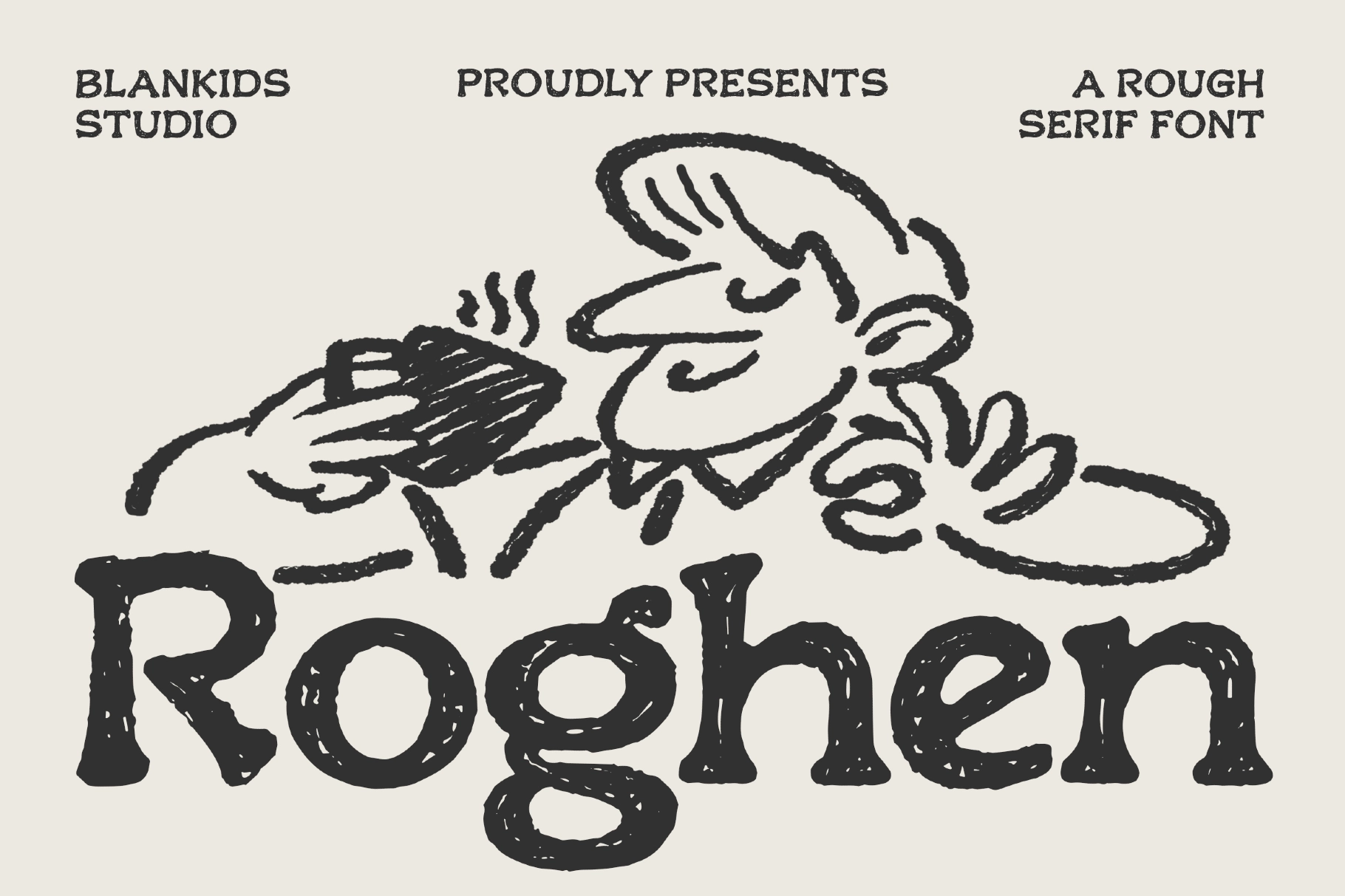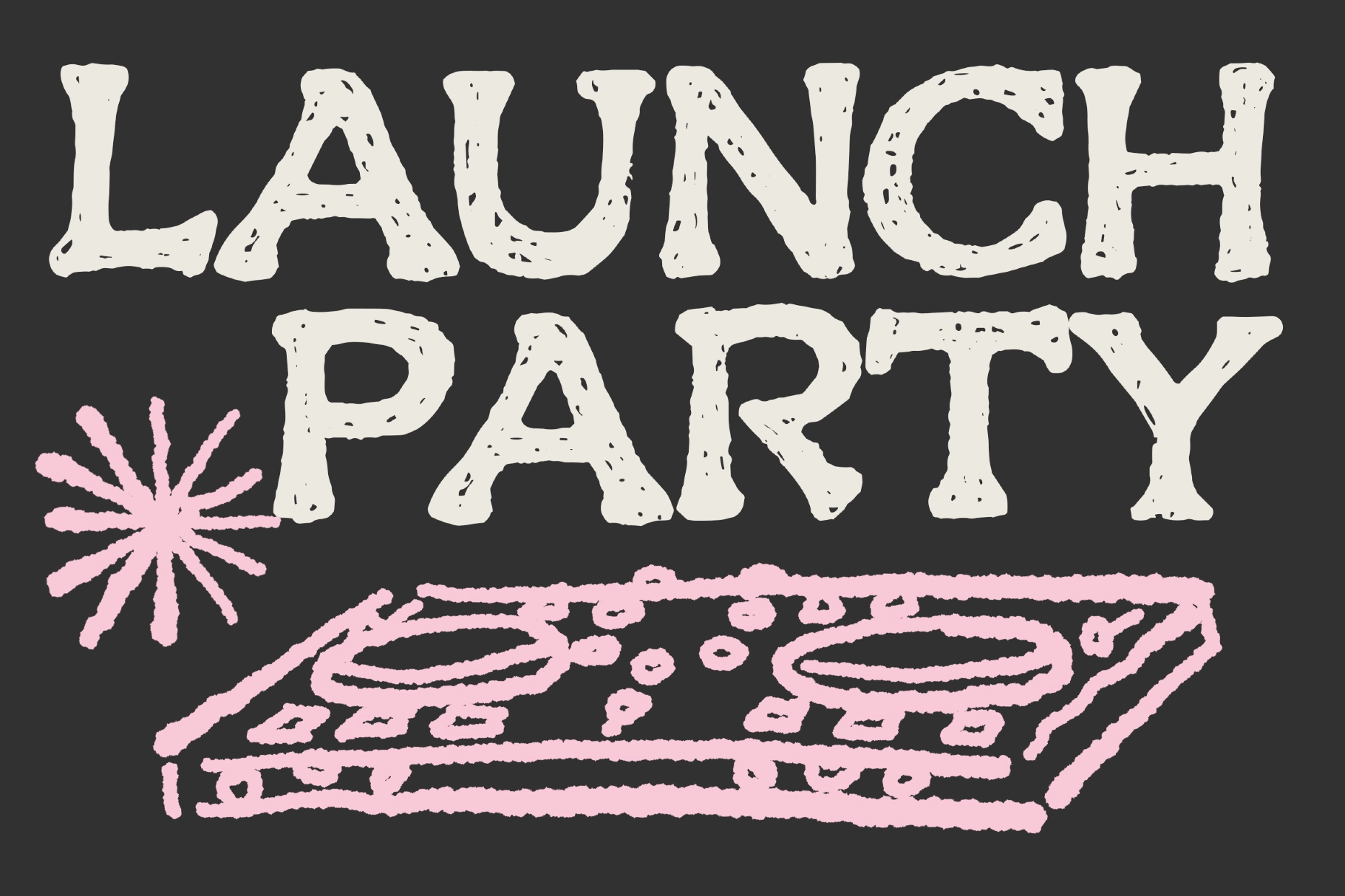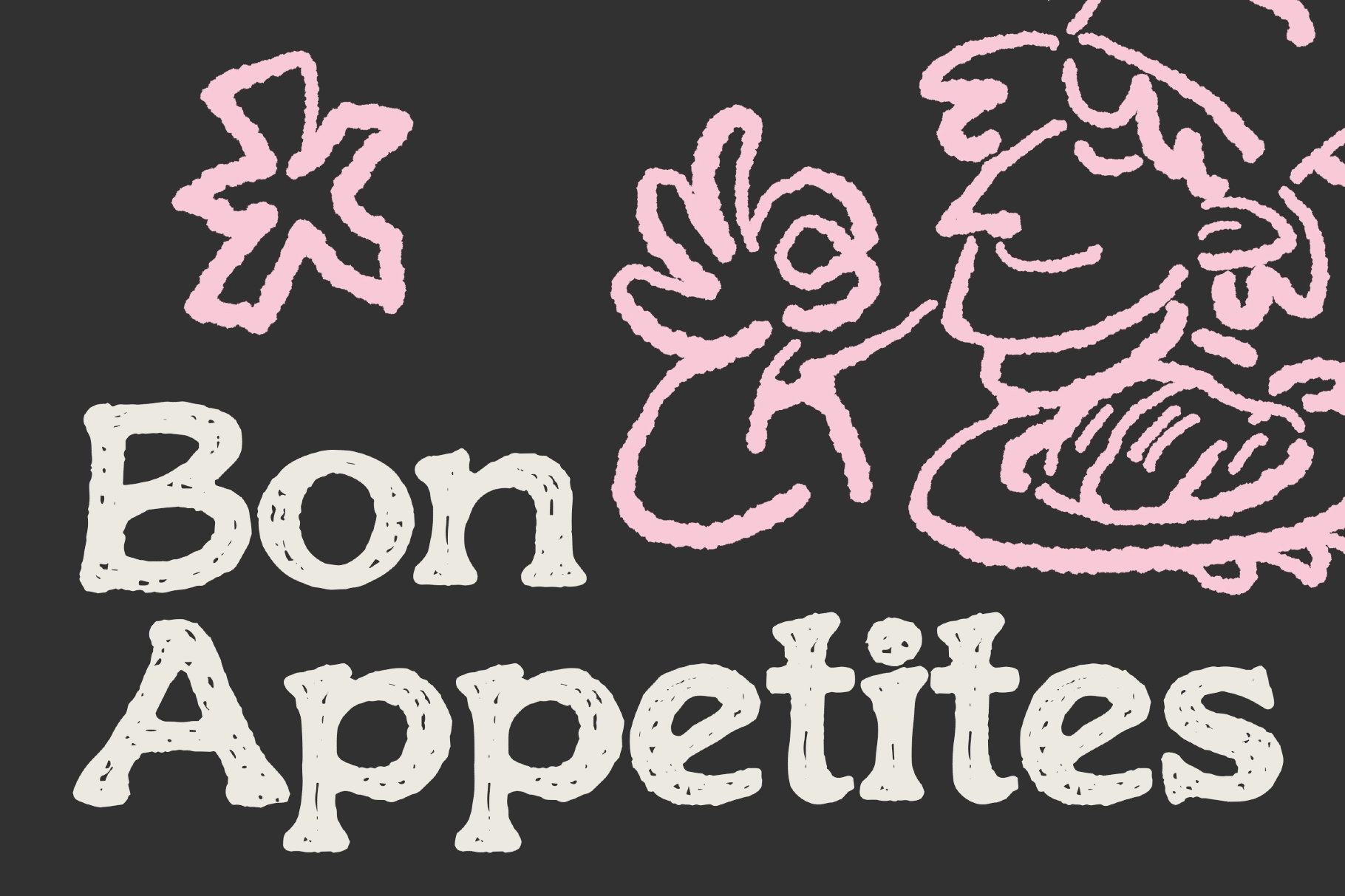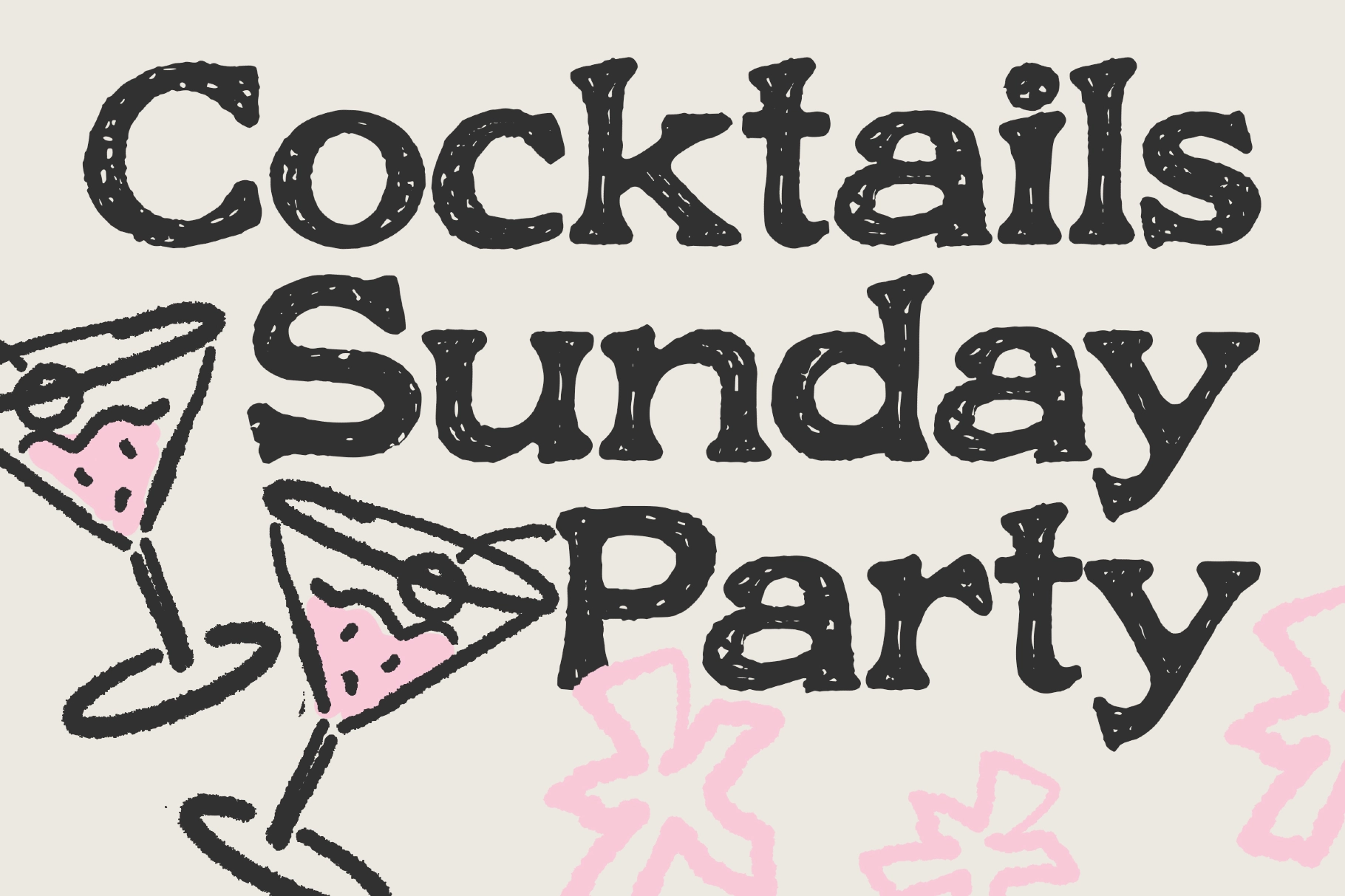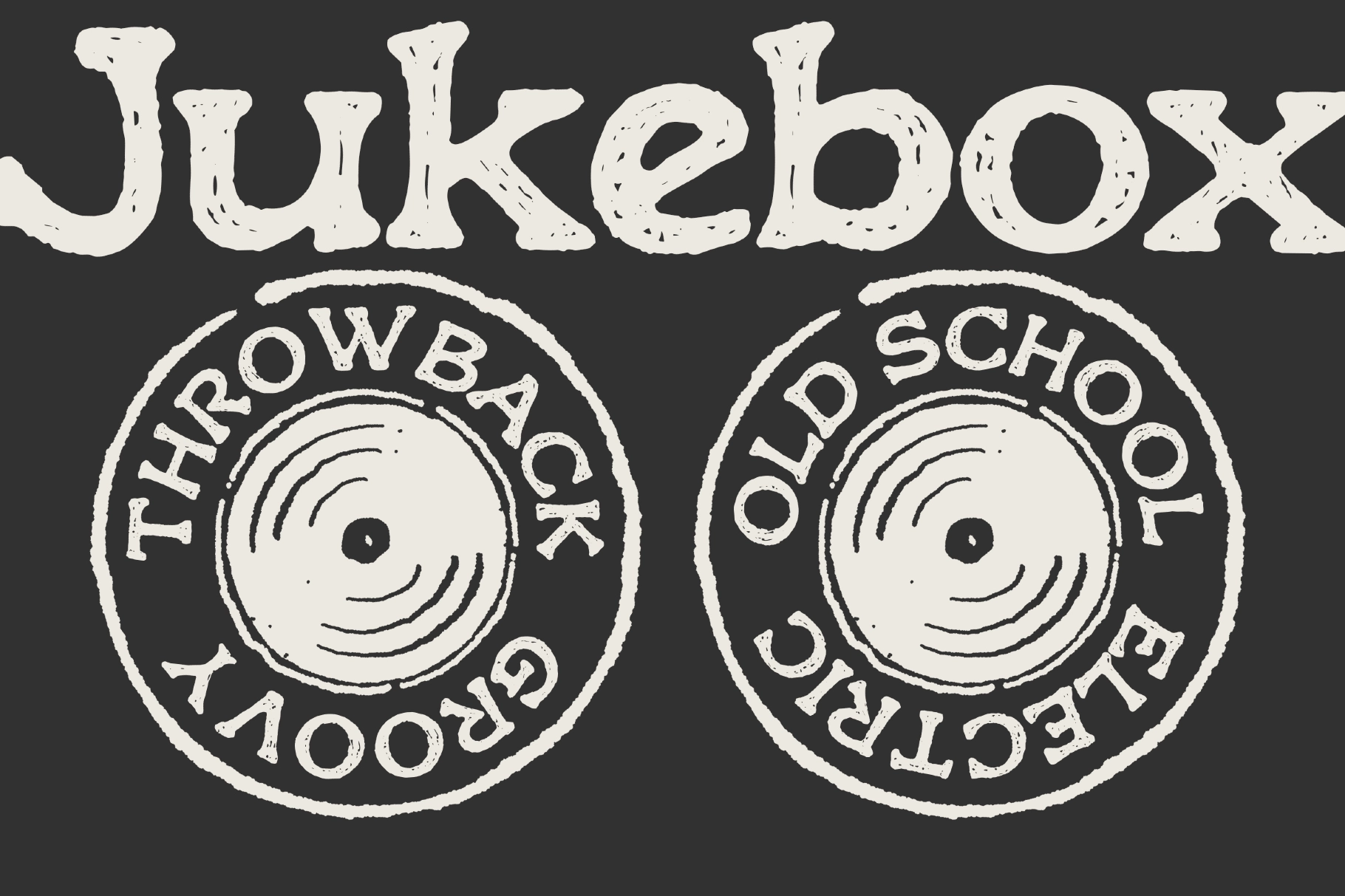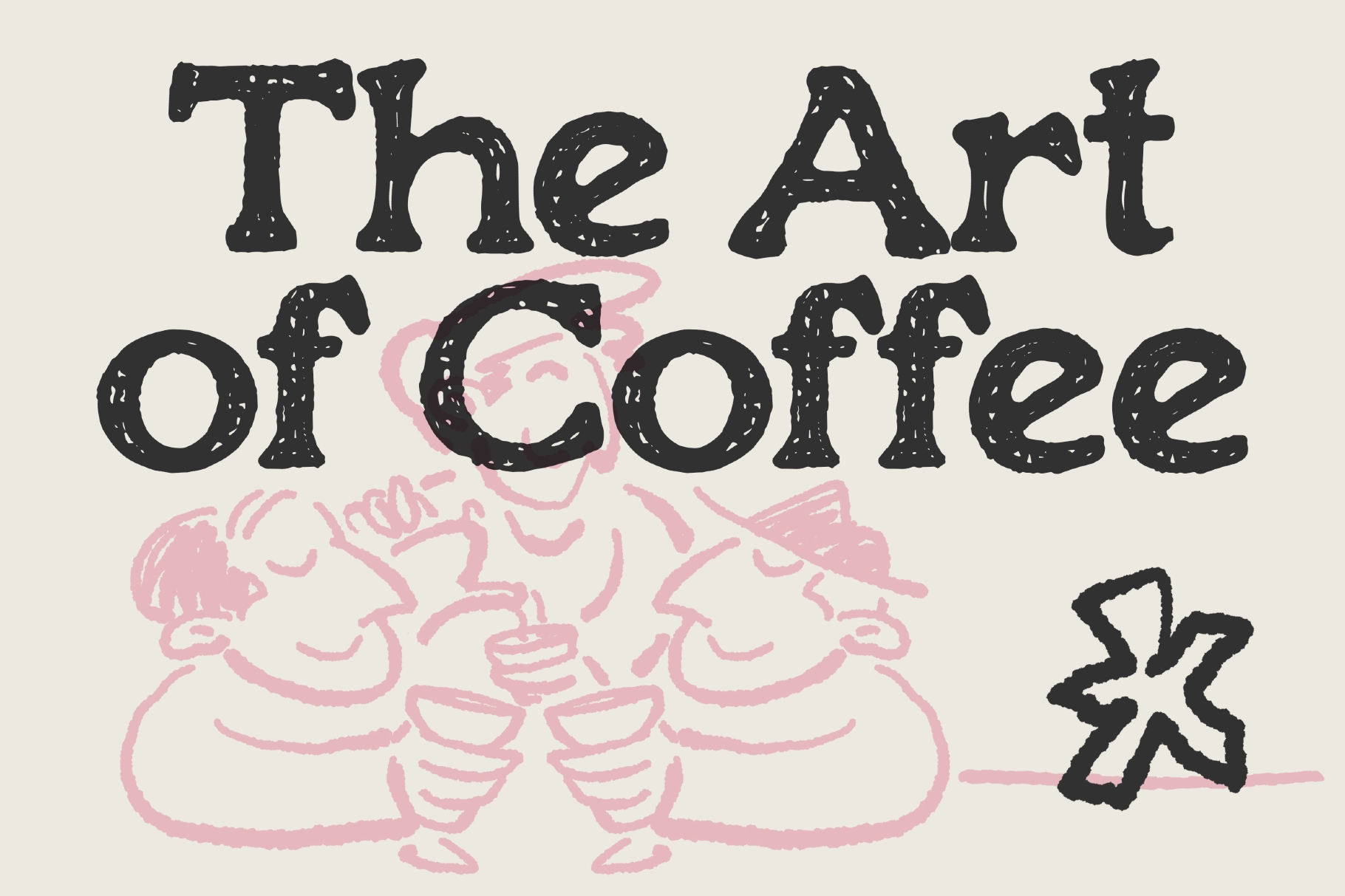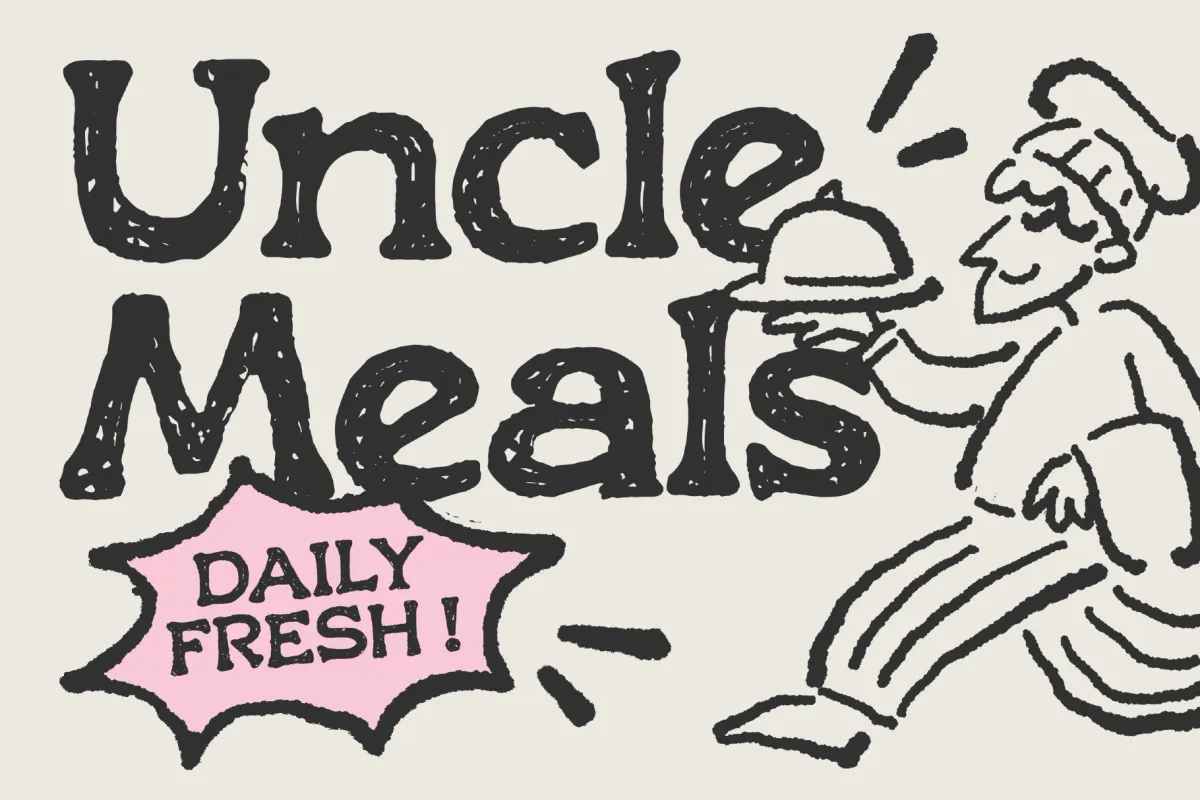
Roghen a Rough Serif Font
Meet Roghen – A Rough Serif Font , a bold display typeface designed to add texture, warmth, and expressive character to your typography. Inspired by hand-drawn lettering and vintage print techniques, Roghen blends strong serif construction with subtle organic imperfections, creating a look that feels raw yet refined.
This rough serif font delivers a handcrafted aesthetic while maintaining solid readability, making it perfect for standout headlines and branding projects. The textured details give your designs a natural, artistic edge—ideal for brands seeking authenticity and personality.
Whether you're working on lifestyle branding, food packaging, café identities, posters, or editorial layouts, Roghen – A Rough Serif Font offers a distinctive balance between vintage charm and modern boldness.
Perfect For:
• Poster & headline design
• Food & beverage branding
• Café & restaurant identity
• Packaging design
• Event promotions
• Social media graphics
• Merchandise & apparel
• Editorial & magazine layouts
• Creative branding projects